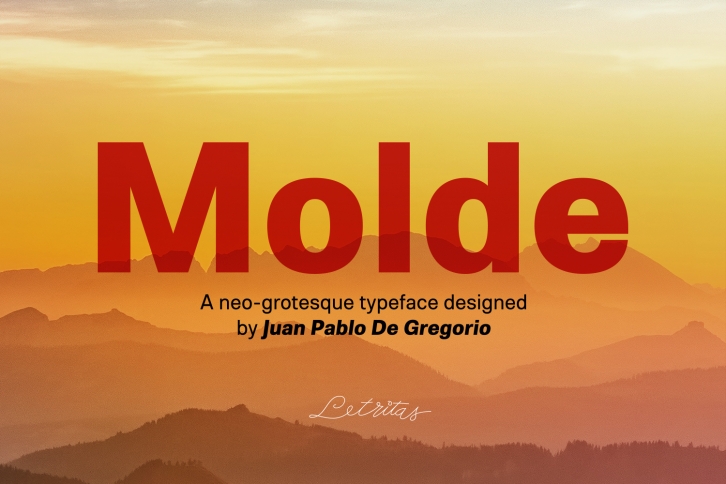
Molde is a beautiful font that was designed by Letritas. It's a great choice for designers and creatives who need such a font. It was released on September 21, 2017 and the file size is 3.68 MB. Molde may give a more youthful, expressive and casual look to your project. It is a very beautiful, refined, elegant, and high-quality font.